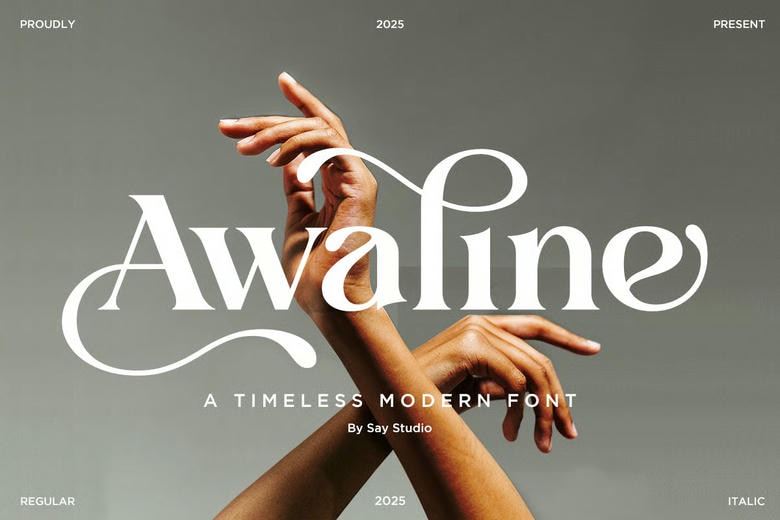
Awaline Font
Awaline Font is an elegant modern serif typeface that has been designed to suit the designers who are interested in the principles of sophisticated design and graceful shapes. Having graceful curves, smooth contrast and expressive ligatures, Awaline adds sophistication in branding, editorial layouts and luxury packaging.
This typeface would be perfect in the fashion labels, magazine headlines, beauty brands, and even wedding identity systems and would be taking every project to the next level with its modern classic appearance.
Awaline Serif Font